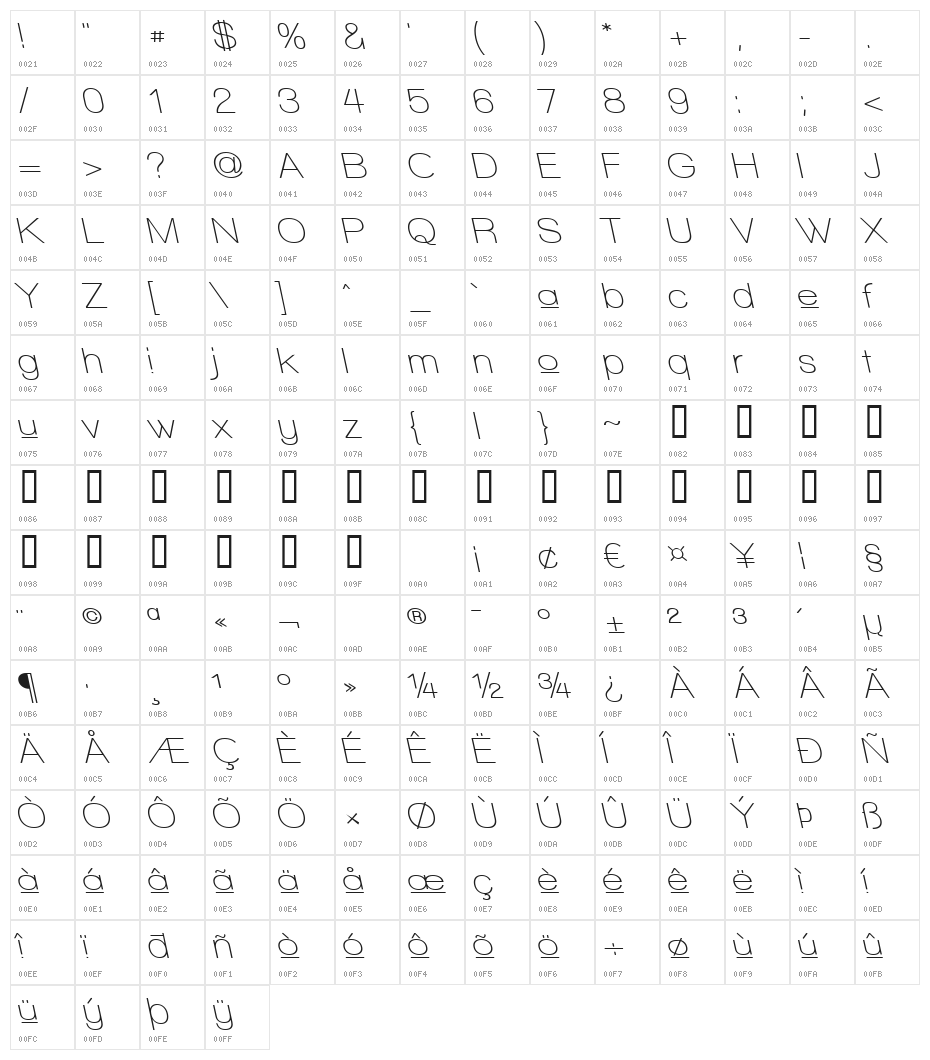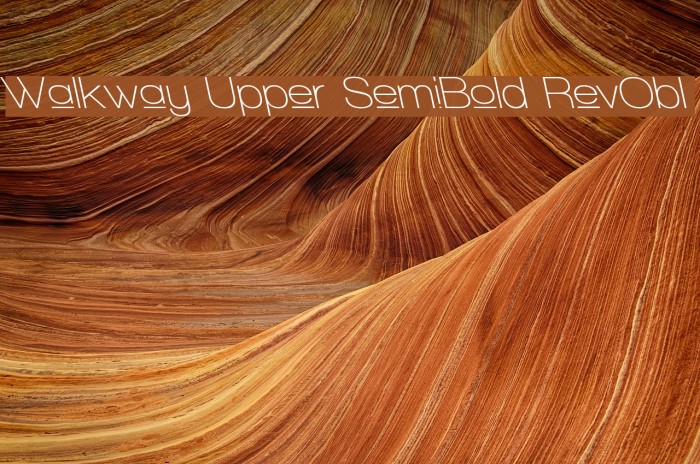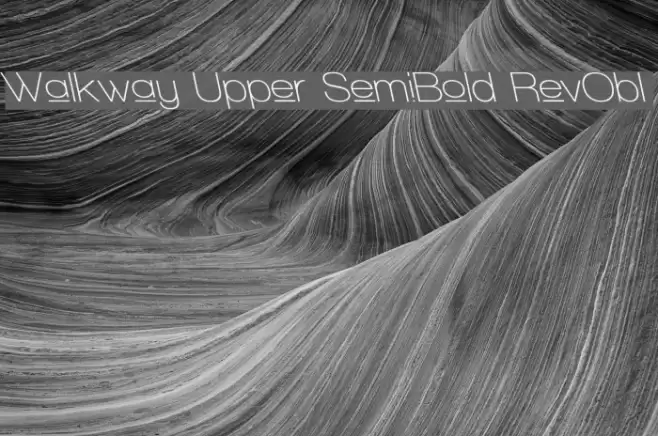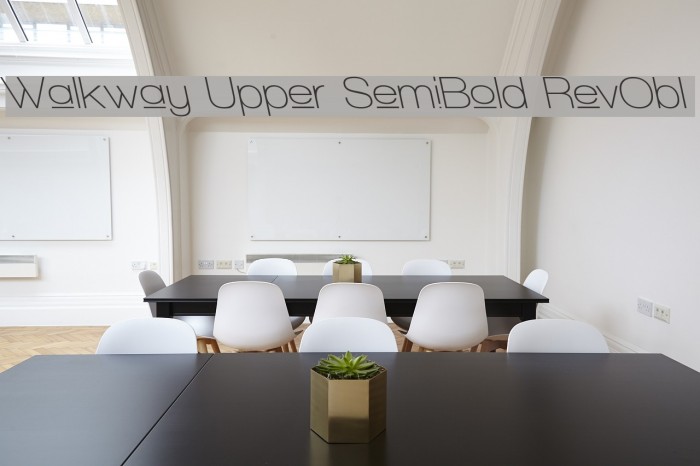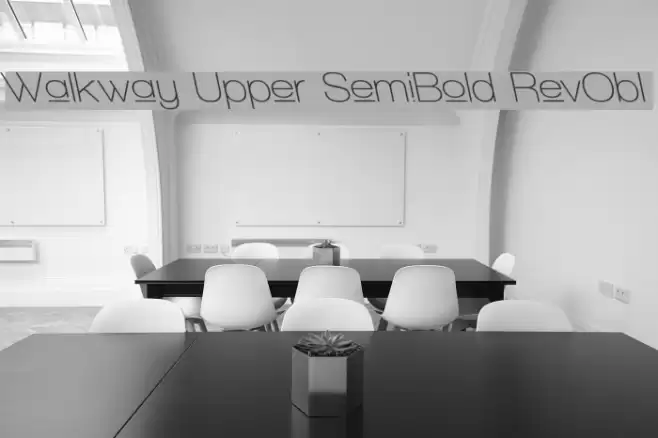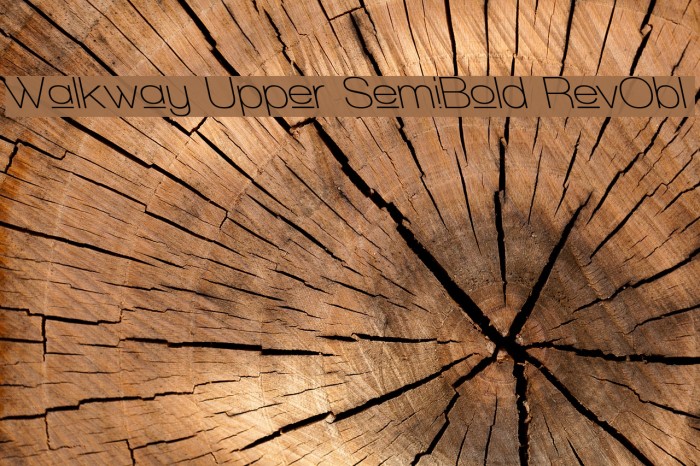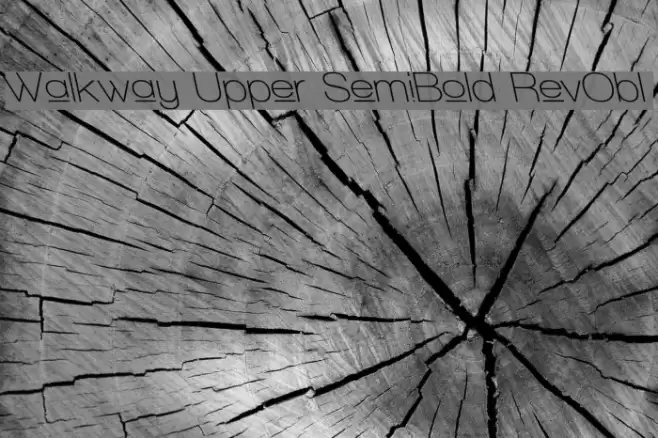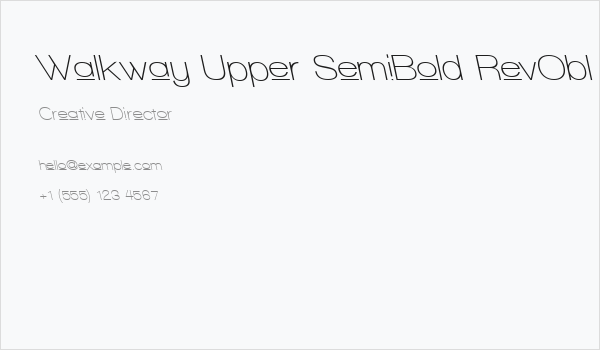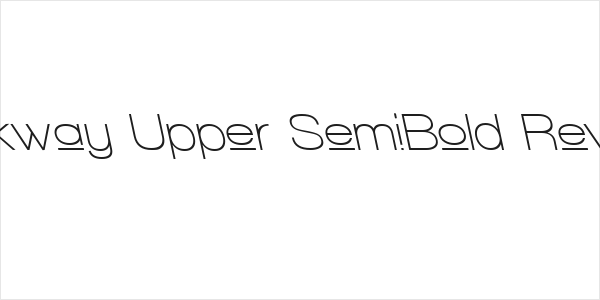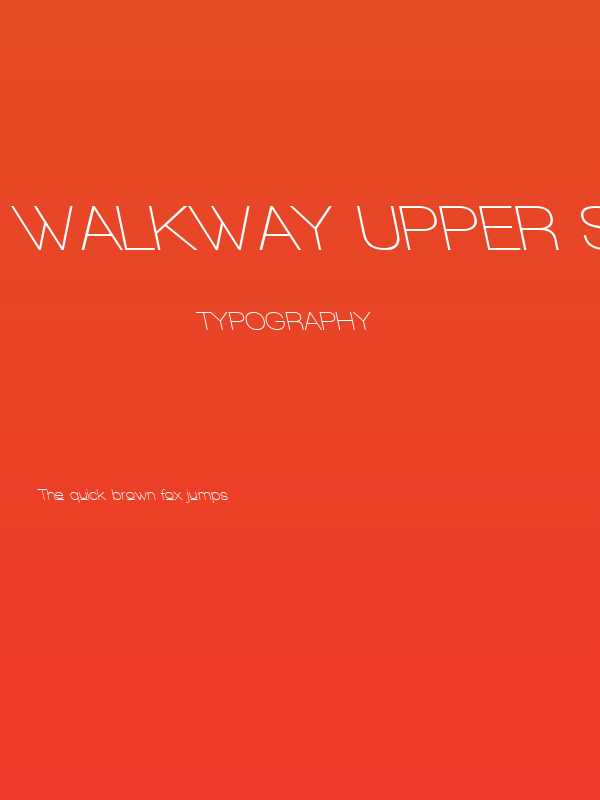
Walkway Upper SemiBold RevObl Font
Walkway Upper SemiBold RevObl Description
This font features a sleek and modern design with a semi-bold weight, offering a clean and professional appearance. The characters are slightly condensed, providing a compact and efficient use of space. The lines are smooth and consistent, with a low contrast in stroke thickness, giving it a uniform and balanced look. The font's style is contemporary, making it suitable for a variety of digital and print applications. Its geometric shapes and clear legibility make it ideal for both headlines and body text, ensuring readability across different media.